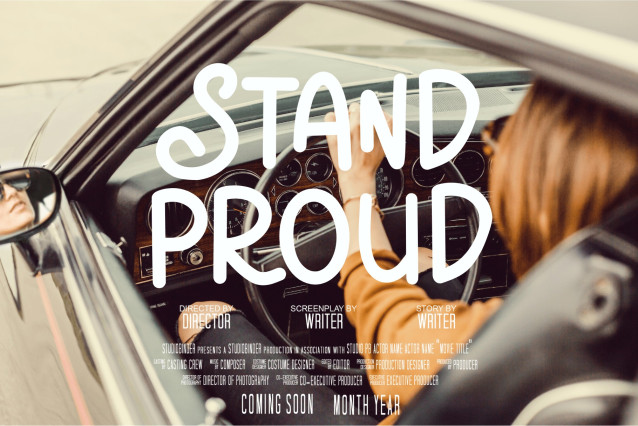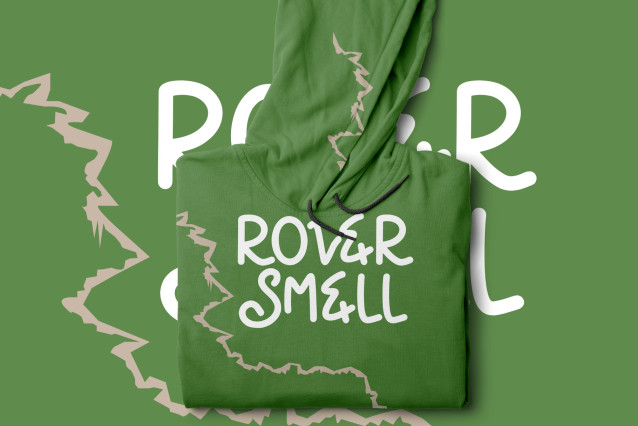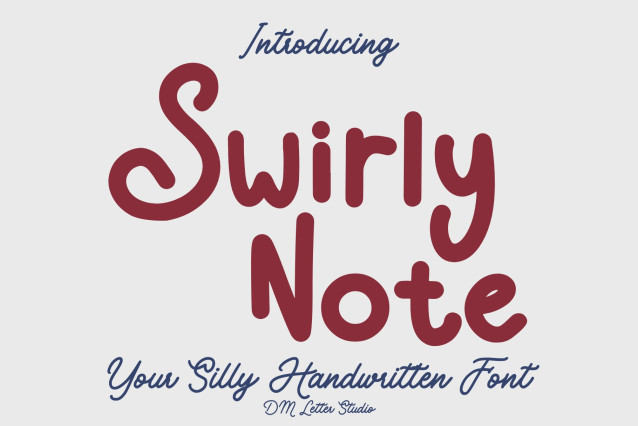
Swirly Note Font
Swirly Note Font is a charming handwritten font full of personality and swirling strokes. With its bouncy baseline and graceful curls, this font adds a delightful, whimsical touch to any project—from cute stationery and digital notes to branding for kids, crafts, or cheerful quotes. Swirly Note feels like a happy doodle straight out of a playful daydream.